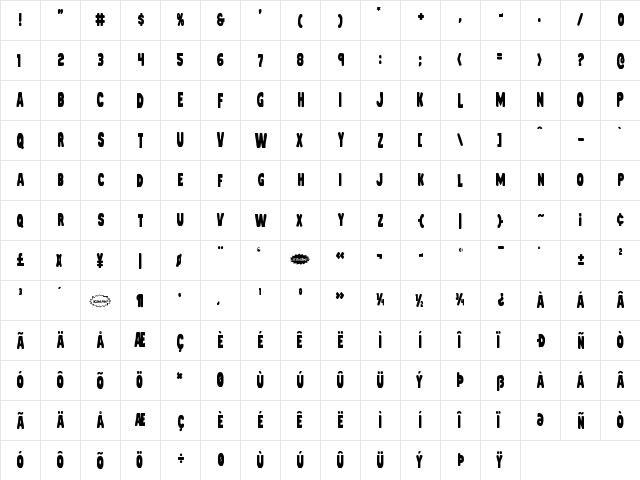
Mystery Mobile Condensed Condensed
Design Context for Mystery Mobile Condensed Typeface
Mystery Mobile Condensed offers clean, dependable letterforms without strong stylistic allegiance, making it a practical choice for designers who need flexibility. The condensed width makes it efficient for tight spaces without sacrificing legibility.